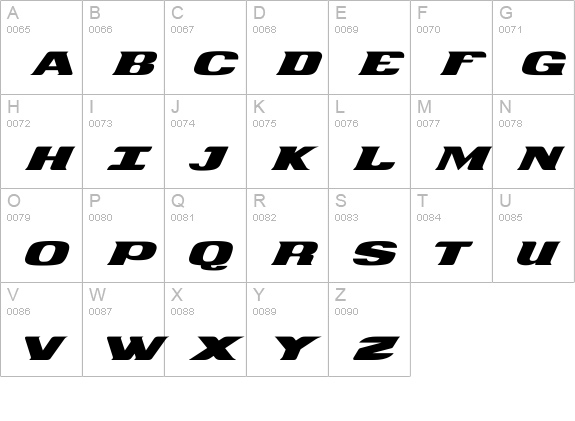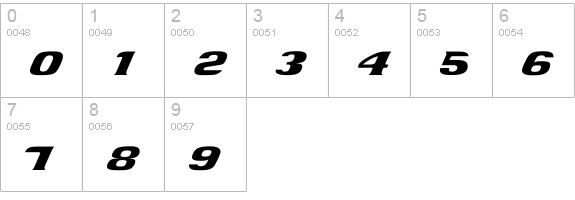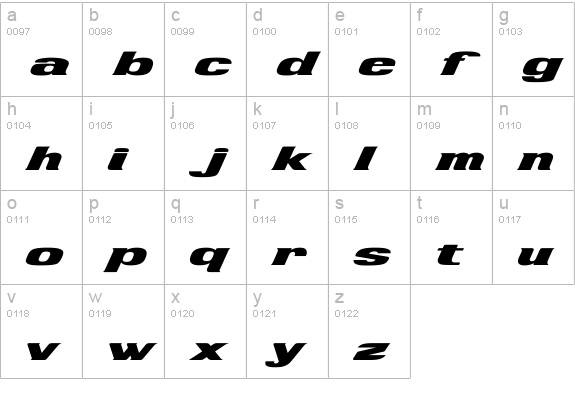
Desperado Font Details
Desperado font is a bold and dynamic typeface that exudes a sense of adventure and ruggedness. With its strong, slanted letterforms and distinctive serifs, Desperado is perfect for creating eye-catching headlines and branding materials. This versatile font can be used for a wide range of projects, from posters to logos to social media graphics. What sets Desperado font apart is not only its striking visual appeal but also its accessibility. This font is available for free download at FontsMarket.com, making it easy for designers and creatives to add a touch of Western-inspired flair to their work without breaking the bank. Whether you're working on a personal project or a client commission, Desperado font is sure to make a bold statement and leave a lasting impression.